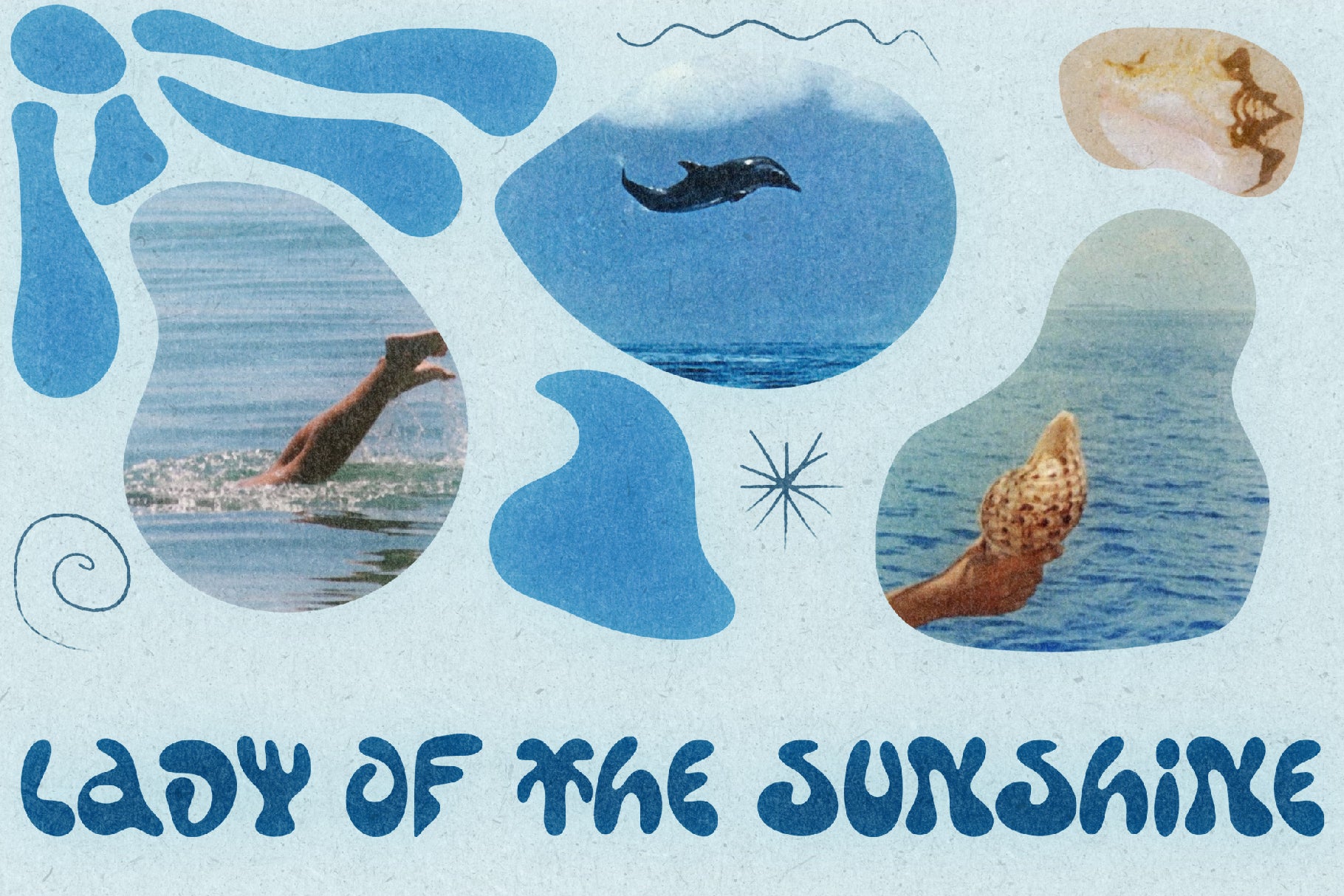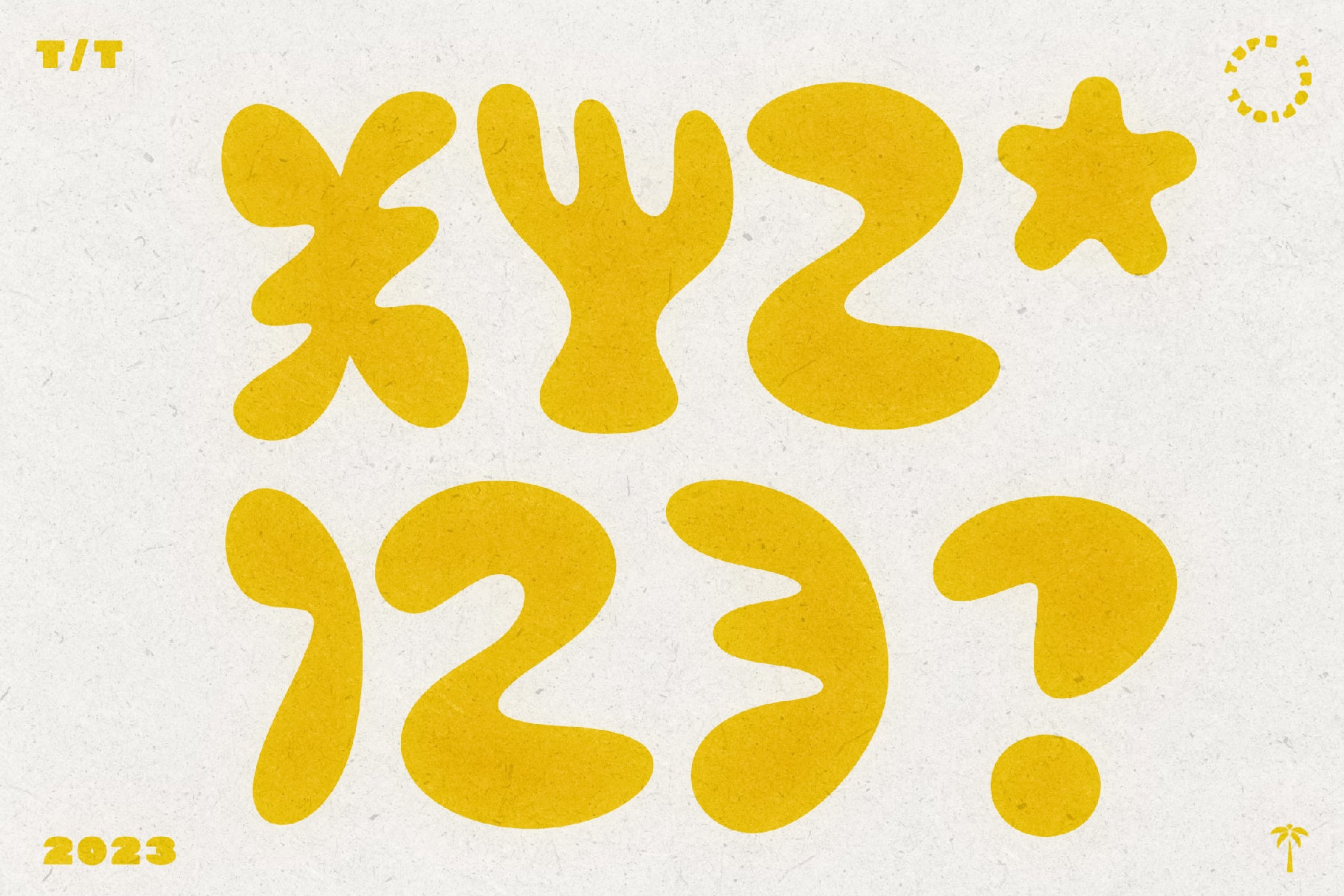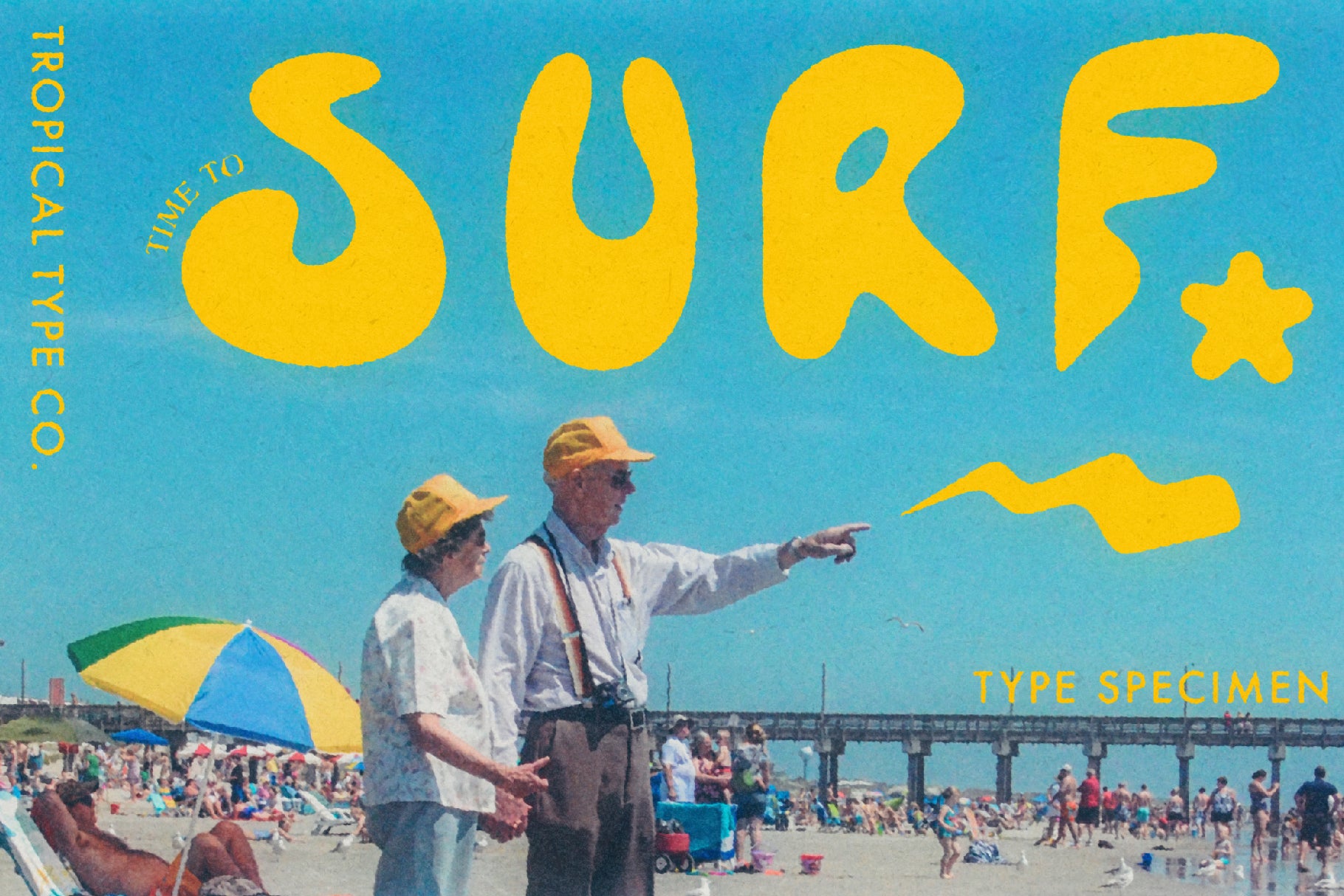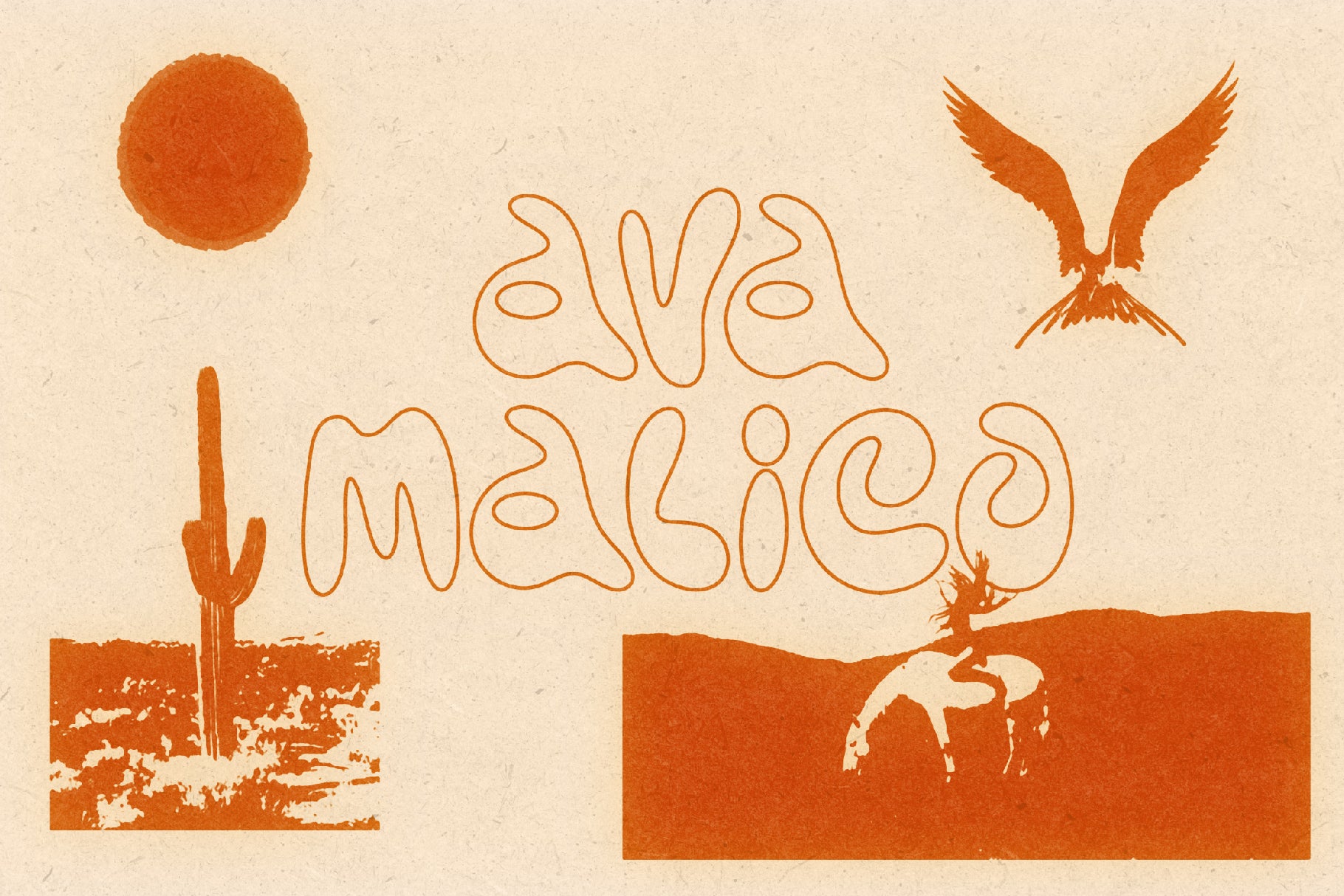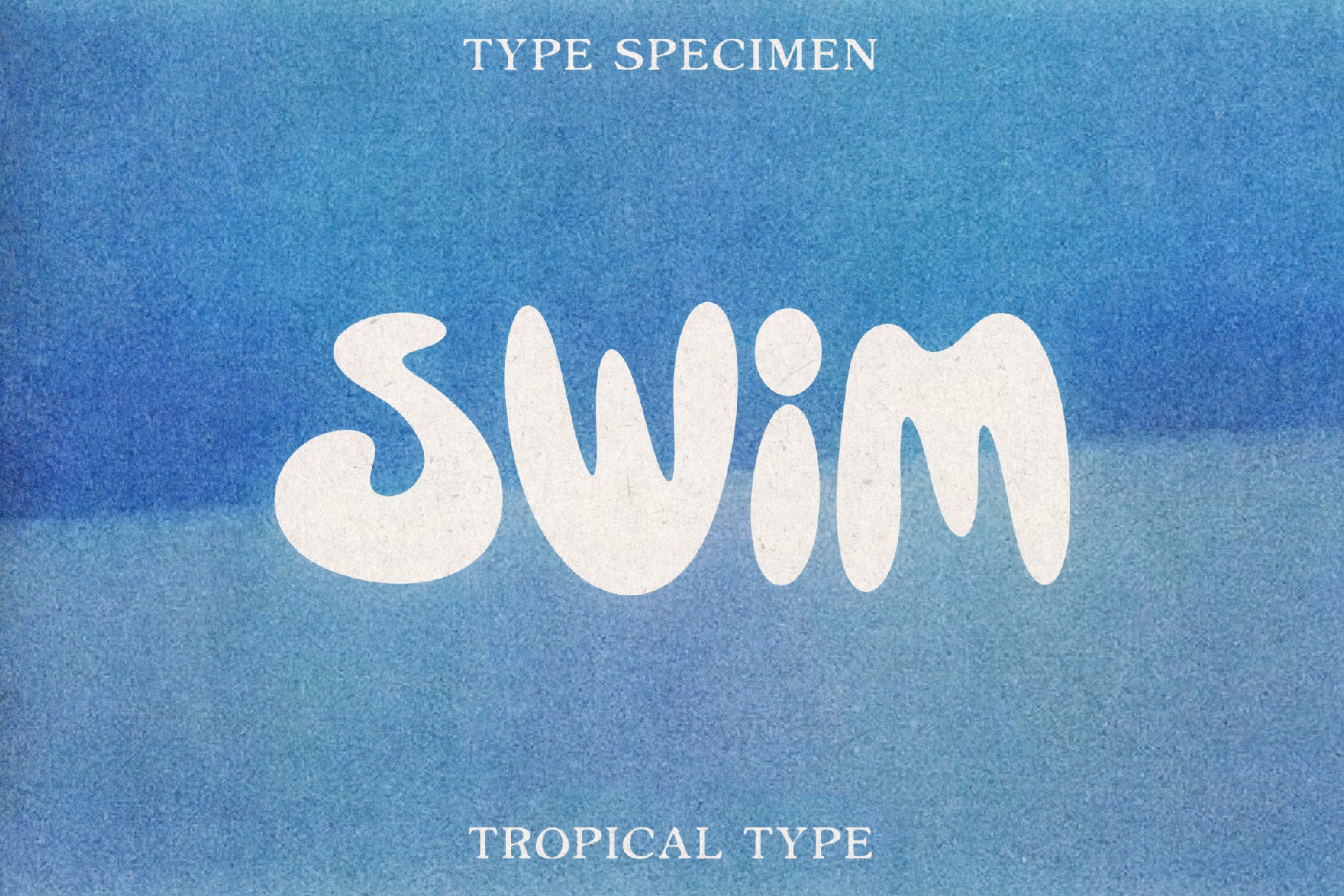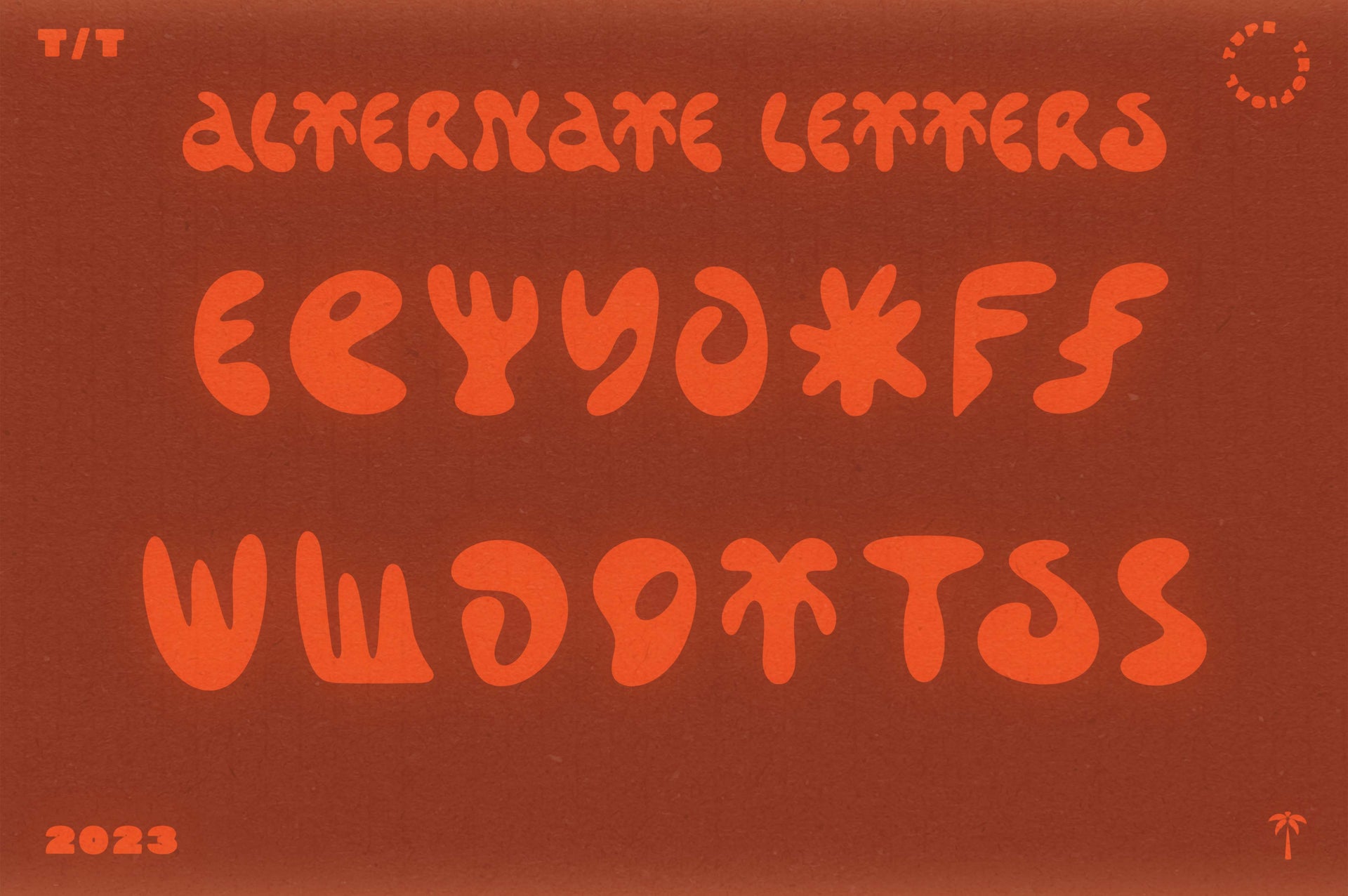
Castaway Display
Castaway is inspired by coral and the calming curves of the sea. It's light-spirited and soft and thick, with a touch of nostalgia thrown in. Verging on abstract, some letterforms drift from their standard shapes creating a unique and memorable typeface. Alternate letters are included to spice up your typography.
Non English glyphs included:
Ą Á  À Ä Å Ã Æ Ć Ç Ę É Ê È Ë Í Î Ì Ï Ł Ń Ñ Ó Ô Ò Ö Õ Ø Œ Ś Š Ú Û Ù Ü Ý Ÿ Ź Ż